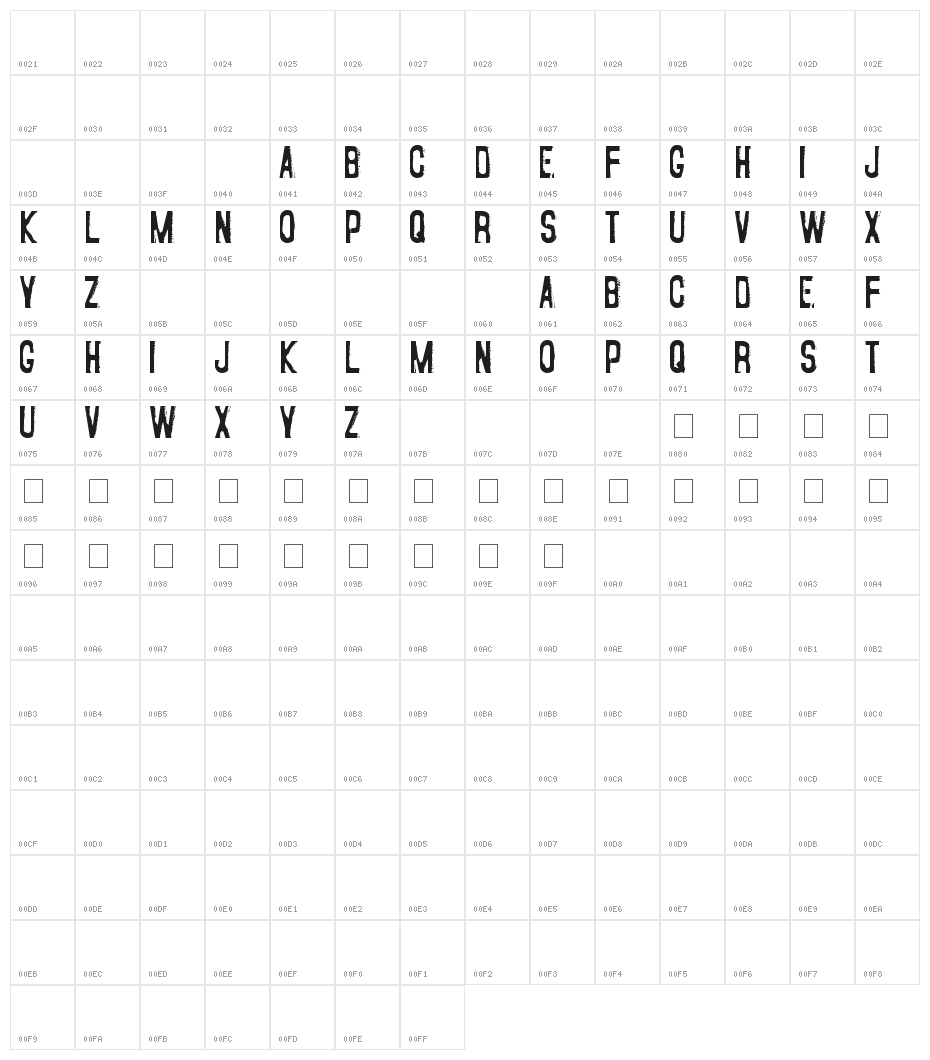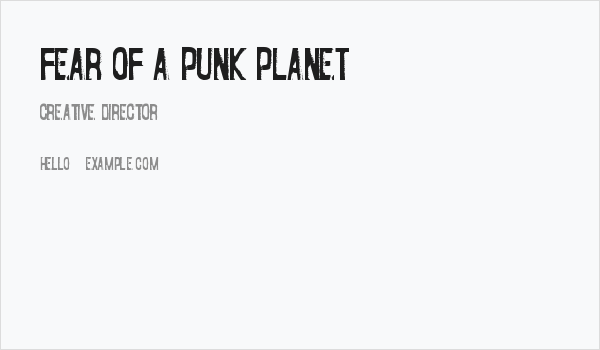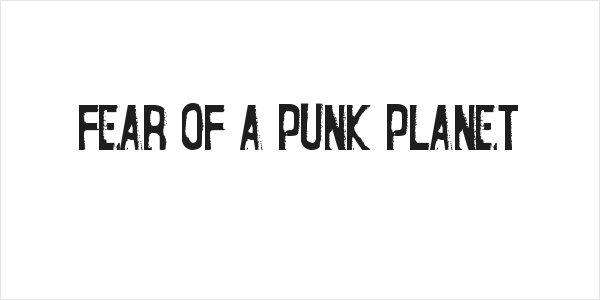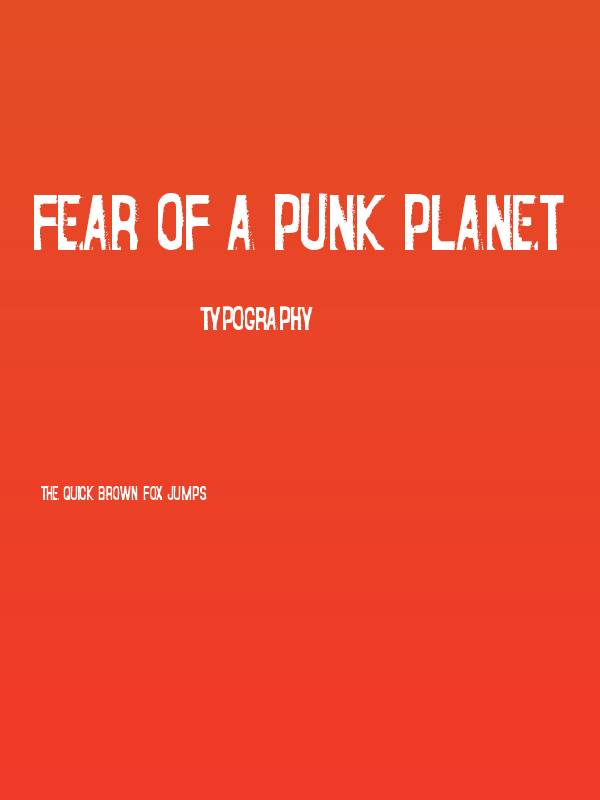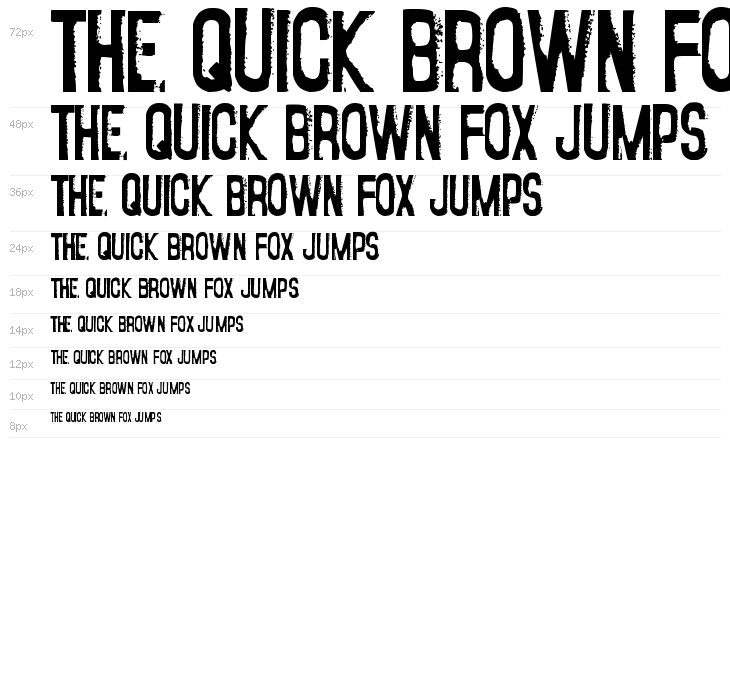
Fear of a Punk Planet Font
Fear of a Punk Planet Description
This font exudes a gritty, rebellious aesthetic, reminiscent of punk rock culture. The letters are bold and uppercase, with a distressed texture that gives them a worn, vintage look. The rough edges and uneven strokes create a sense of movement and energy, making it perfect for projects that require a bold statement. The font's unique style captures attention and conveys a sense of edginess and nonconformity. Its bold presence makes it ideal for headlines, posters, and any design that aims to stand out with a strong visual impact.
| Overall Style | Vintage, Punk |
| Use Case | Headlines, Posters, Logos |
| Proposed Projects | Ideal for music posters, album covers, rebellious branding, and edgy graphic designs. |